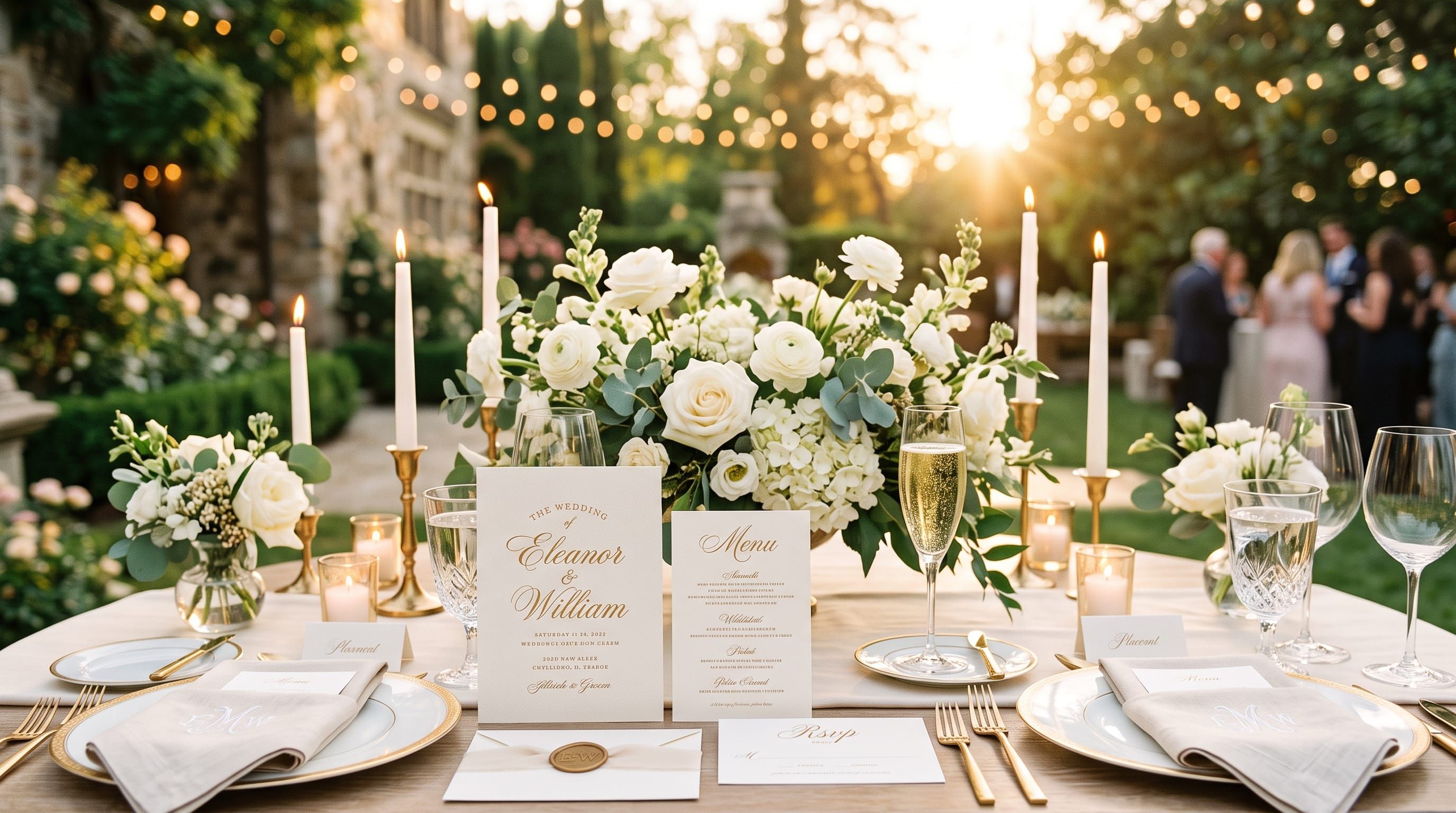
Wedding Fonts for Better Wedding Design Results
Choosing the right wedding fonts is one of the most important decisions in wedding design. Whether you’re creating invitations, save-the-date cards, wedding logos, seating charts, welcome signs, menus, or personalized gifts, typography helps establish the mood and personality of the entire celebration.
Elegant wedding fonts communicate romance, sophistication, and timeless beauty before guests even read the invitation. A carefully selected typeface can complement floral illustrations, luxurious color palettes, and premium paper finishes, making every design feel cohesive and memorable.
Why Wedding Fonts Matter
Typography creates the first impression of every wedding design.
Beautiful wedding fonts help:
• Create elegant invitations
• Strengthen wedding branding
• Improve readability
• Establish a romantic atmosphere
• Personalize wedding stationery
• Increase perceived quality
• Create memorable guest experiences
The right typography sets expectations for the celebration.
Wedding Fonts for Different Wedding Styles
Different wedding themes require different typography.
Modern Wedding Fonts
Modern typography features:
• Clean lines
• Minimal decoration
• Elegant spacing
• Contemporary styling
Perfect for:
• Luxury weddings
• City weddings
• Modern venues
• Editorial-inspired invitations
Classic Wedding Fonts
Classic wedding fonts emphasize timeless elegance.
Characteristics include:
• Graceful letterforms
• Balanced proportions
• Refined details
Ideal for:
• Traditional ceremonies
• Ballroom receptions
• Formal invitations
Rustic Wedding Fonts
Rustic typography creates a warm atmosphere.
Perfect for:
• Barn weddings
• Garden ceremonies
• Outdoor receptions
• Handmade stationery
Natural-looking scripts work beautifully with botanical themes.
Wedding Fonts for Invitations and Stationery
Wedding stationery should remain elegant and readable.
Save-the-Date Cards
Typography should highlight:
• Couple names
• Wedding date
• Location
Decorative headlines paired with readable details create balance.
Wedding Invitations
Successful invitation typography includes:
• Elegant headings
• Clear information hierarchy
• Generous spacing
Simple layouts often feel more luxurious.
Wedding Day Signage
Use wedding fonts for:
• Welcome signs
• Seating charts
• Table numbers
• Menus
• Ceremony programs
Consistency across every piece strengthens the wedding identity.
Wedding Fonts for Wedding Branding
Wedding branding extends beyond invitations.
Wedding Logos
Monograms and logos work well on:
• Invitations
• Thank-you cards
• Gift boxes
• Wedding websites
Elegant typography creates a cohesive visual identity.
Social Media Wedding Graphics
Wedding planners and photographers often use:
Professional typography builds brand recognition.
Nuptalia
NuptaliaView
Best for:
• Luxury invitations
• Wedding logos
• Save-the-date cards
• Elegant stationery
Nuptalia features graceful script lettering that creates a timeless romantic appearance.
Clairmont Script
Clairmont ScriptView
Perfect for:
• Bride and groom names
• Wedding certificates
• Luxury menus
• Thank-you cards
Its flowing calligraphy adds sophistication.
Merelya
Merelya Font
Merelya FontView
Ideal for:
• Wedding quotes
• Personalized gifts
• Bridal shower invitations
• Wedding websites
Merelya combines elegance with excellent readability.
Silkora
Recommended for:
• Premium wedding branding
• Floral invitations
• Monograms
• Welcome signs
Its refined script style complements luxury weddings.
Honeyquill
Honeyquill Font
Perfect for:
• Rustic weddings
• Garden ceremonies
• Handmade stationery
• Wedding favors
Honeyquill creates a warm handcrafted appearance.
Romanttica
Romanttica - Modern Script Brush Font
Best for:
• Supporting text
• Invitation details
• Menus
• RSVP cards
Its clean serif style balances decorative scripts beautifully.